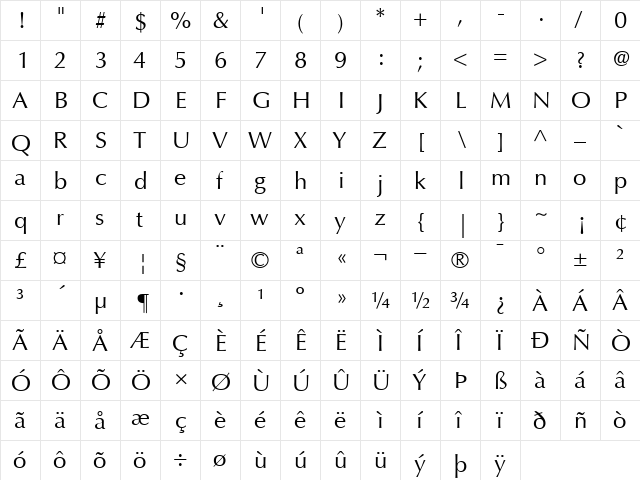
OptimaRoman Roman
Design Context for OptimaRoman Typeface
OptimaRoman takes a measured approach to typography — its balanced proportions and neutral character make it a reliable workhorse for both digital and print work.